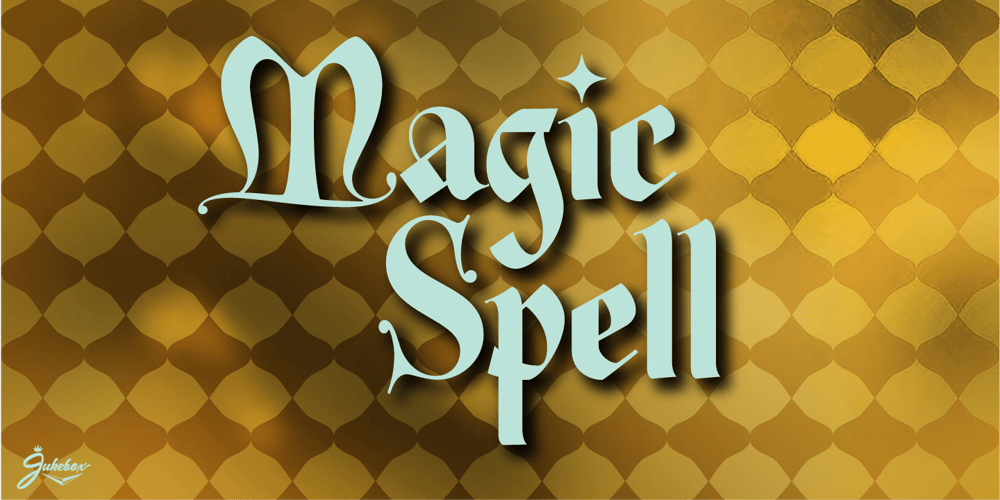
Magic Spell JF Font Family was designed by Jason Anthony Walcott and published by Jukebox Collection. Magic Spell JF contains 1 styles and family package options. Magic Spell is a mystical, fun font based on a handlettered alphabet in an old 1930s book on lettering. It captures that old world feel of magical wizards and fairy tales. Conjur up some fantastic designs with this bewitching font!Jukebox fonts are available in OpenType .otf format and all fonts contain basic OpenType features as well as support for Latin-based and most Eastern European languages.